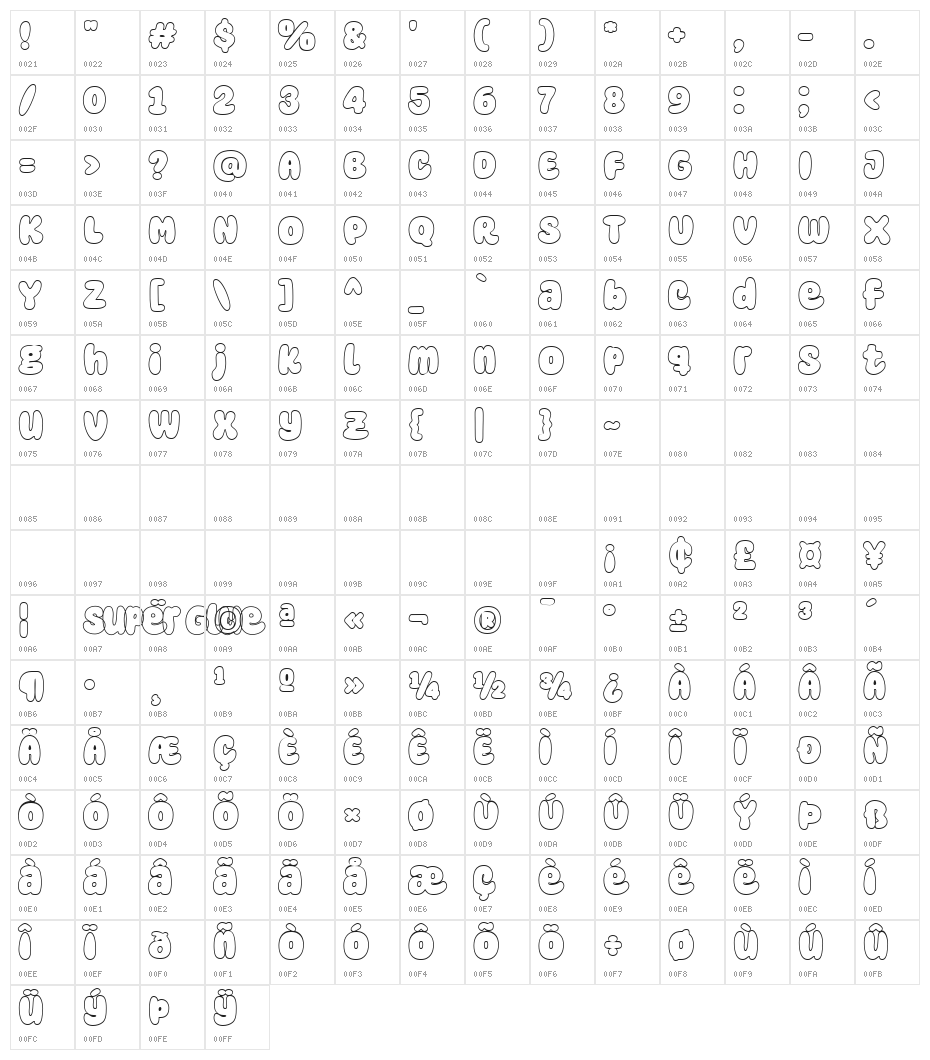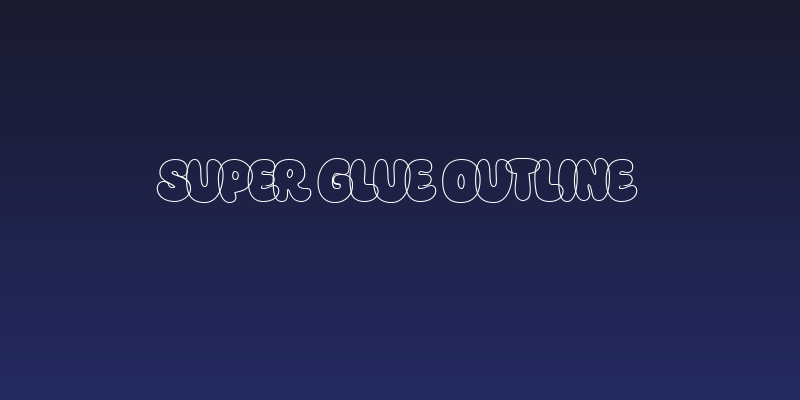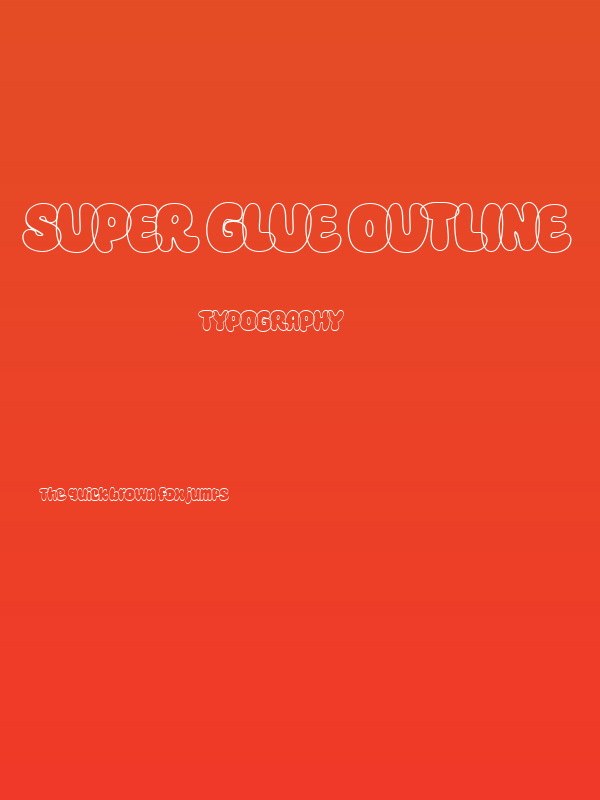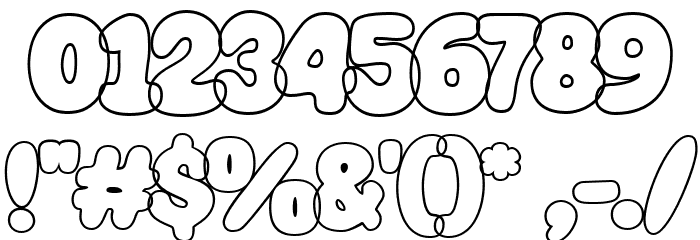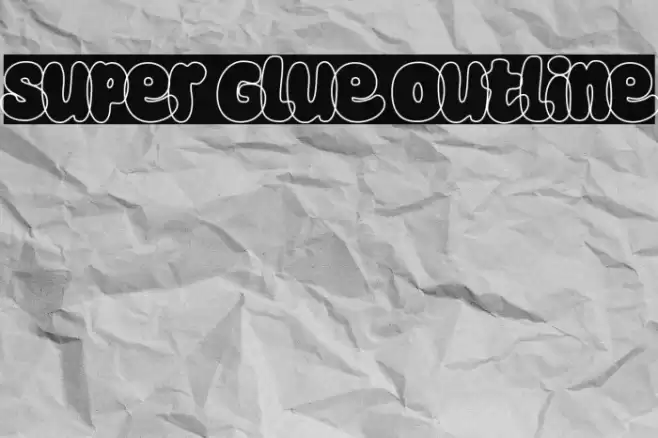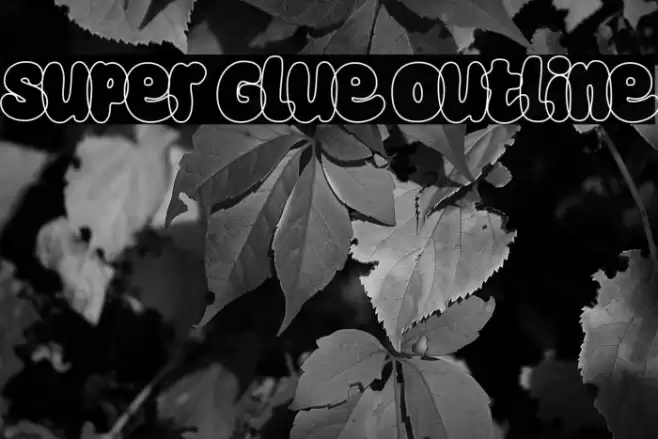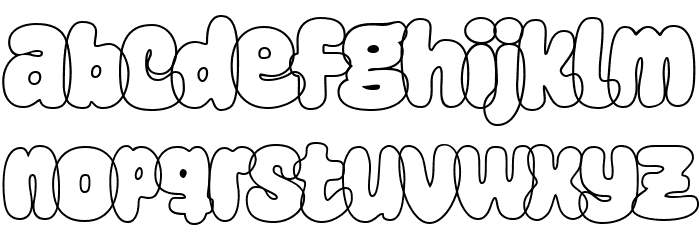
Super Glue Outline Font
Super Glue Outline Description
This font features a playful and bold outline style, characterized by its bubble-like, rounded shapes. Each letter is outlined with a consistent thickness, giving it a cartoonish and whimsical appearance. The characters are wide and have a soft, inflated look, which makes them stand out prominently. This style is particularly eye-catching and is designed to grab attention with its fun and informal vibe. The font includes a full set of uppercase and lowercase letters, numbers, and a variety of special characters, all maintaining the same playful outline aesthetic. The uniformity in the outline thickness across all characters ensures a cohesive look, making it suitable for designs that require a bold and lively touch.
| Width | Expanded |
| Overall Style | Playful, Whimsical |
| Proposed Projects | Ideal for children's books, playful branding, party invitations, and cartoon-themed designs. |